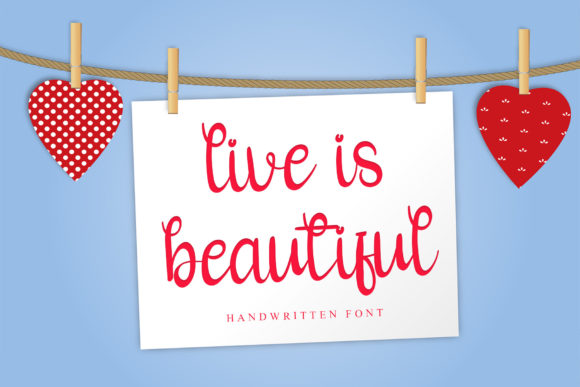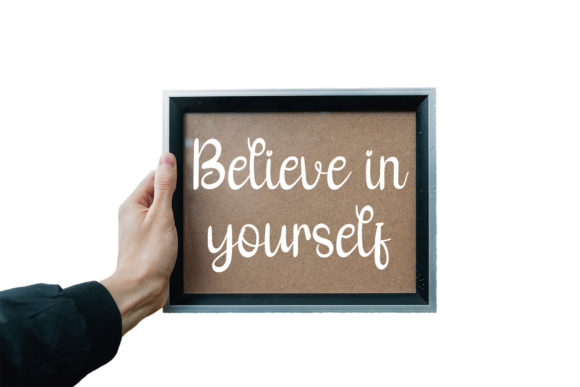
Summer Wedding Font
db-ku.com - Script & Handwritten -- Summer Wedding is a unique and elegant handwritten font, specially designed to enhance any creation! Use it for school projects, important events, assignments, or any other projects that need to stand out!